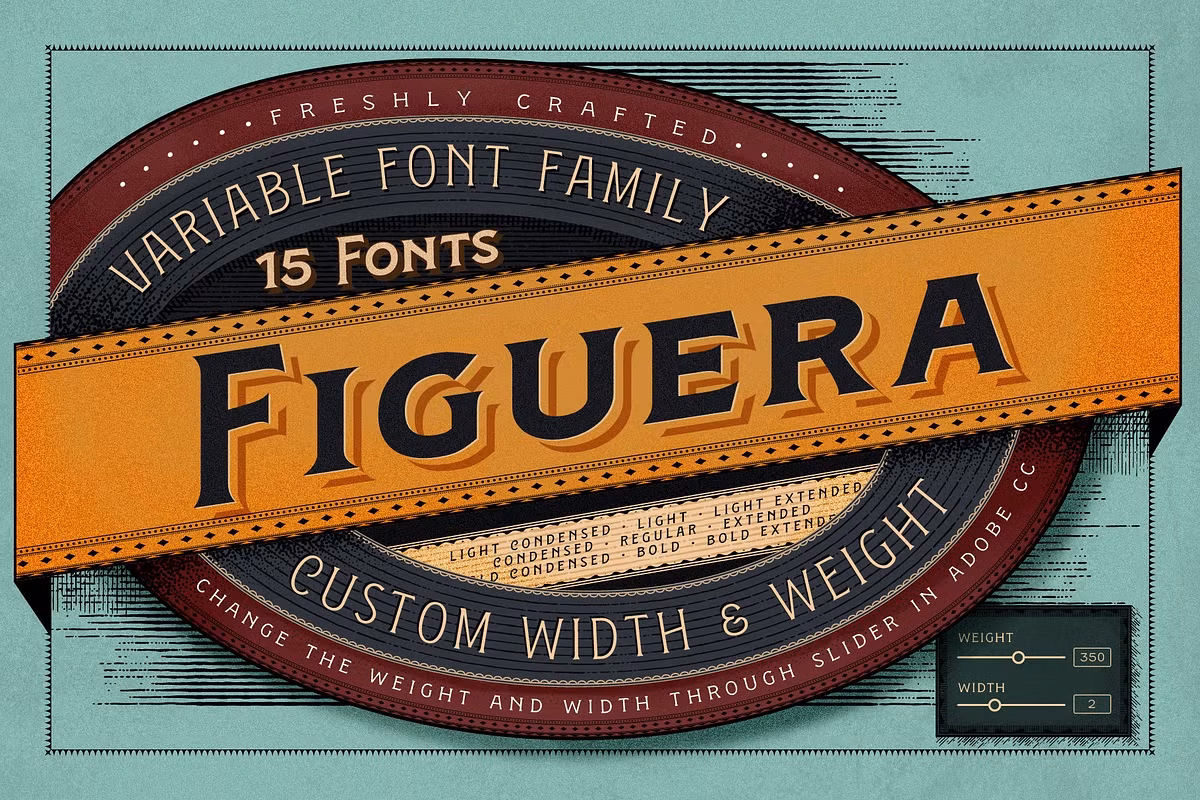
The Figuera Variable Fonts Free Download is a modern and versatile typeface family that offers flexibility and creativity through its variable font technology. Perfect for branding, logos, websites, editorial design, and any creative project, this font adapts to a wide range of styles and weights, providing you with ultimate control over your typography.
With its clean, contemporary design, Figuera features adjustable weights and widths, allowing for a customizable look and feel that suits your project’s specific needs. It includes uppercase and lowercase letters, numbers, punctuation, and multilingual support, making it versatile for both print and digital applications.